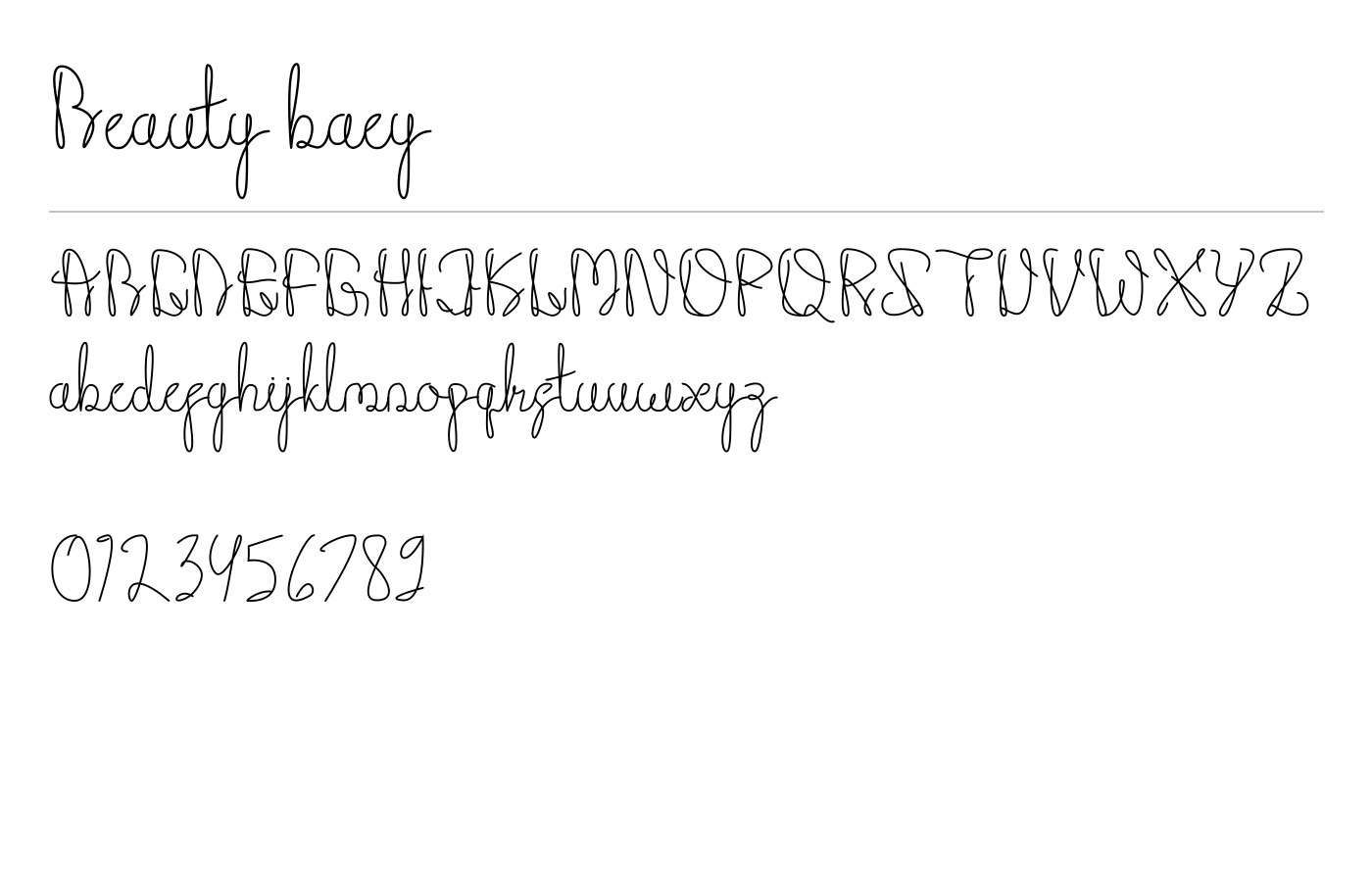
Beauty baey is a delicate, hand-drawn script font with a whimsical and airy quality. Its thin, flowing lines and playful loops give it a light and artistic feel, making it perfect for creative branding, invitations, or any design seeking a charming, personal touch. This font works best in decorative or headline settings where a unique, handwritten style stands out beautifully.
Beauty baey Font
About Beauty baey Font
| Designer | Laura Akcsel Ammi Suwantara |